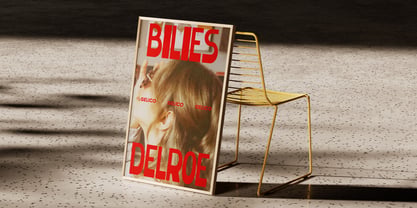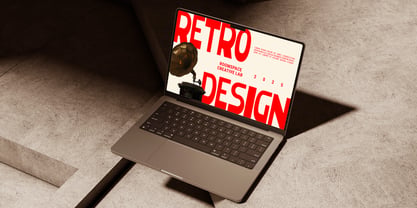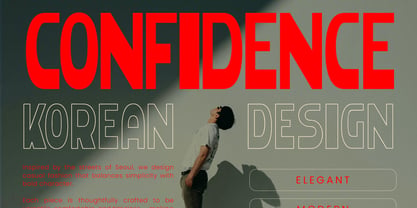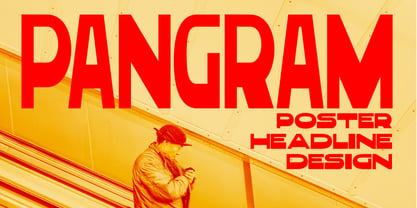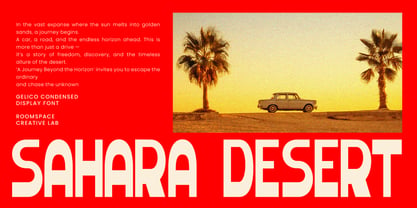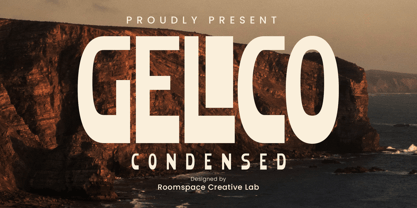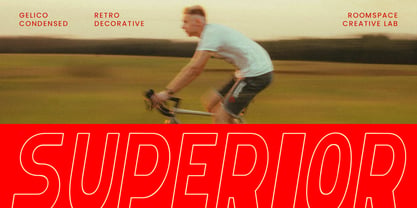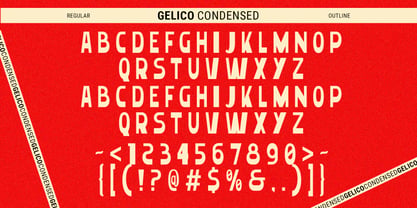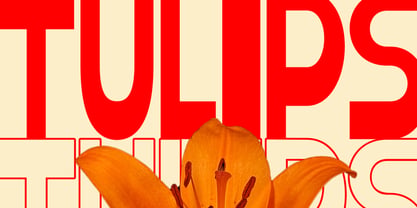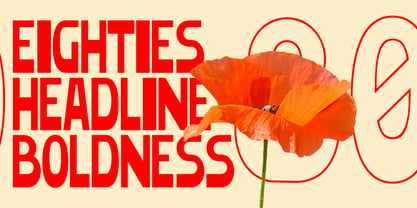
Gelico Condensed
The Gelico Condensed Font Family was designed by Bakhrudin Ja'far and published by Jafar07. Gelico Condensed contains 4 styles and family package options. More about this family
Gelico a bold condensed display font crafted to deliver strong impact and modern appeal. With its sleek condensed form, Gelico combines boldness and simplicity, creating a typeface that instantly grabs attention while maintaining clarity and style. Perfectly designed for contemporary projects, Gelico brings a professional yet creative vibe to your typography.
Each letter in Gelico is built with sharp edges and balanced proportions, giving it a powerful presence on any layout. The condensed width makes it highly space-efficient, while still preserving excellent readability. Whether used for large headlines or structured branding, Gelico provides versatility and modern aesthetics in one package.
Ideal for logos, posters, magazine covers, social media graphics, editorial layouts, and product packaging, Gelico ensures your design stands out with bold energy. Elevate your visual identity with this condensed font and give your work the strong, modern edge it deserves. Try Gelico today and make every headline unforgettable.